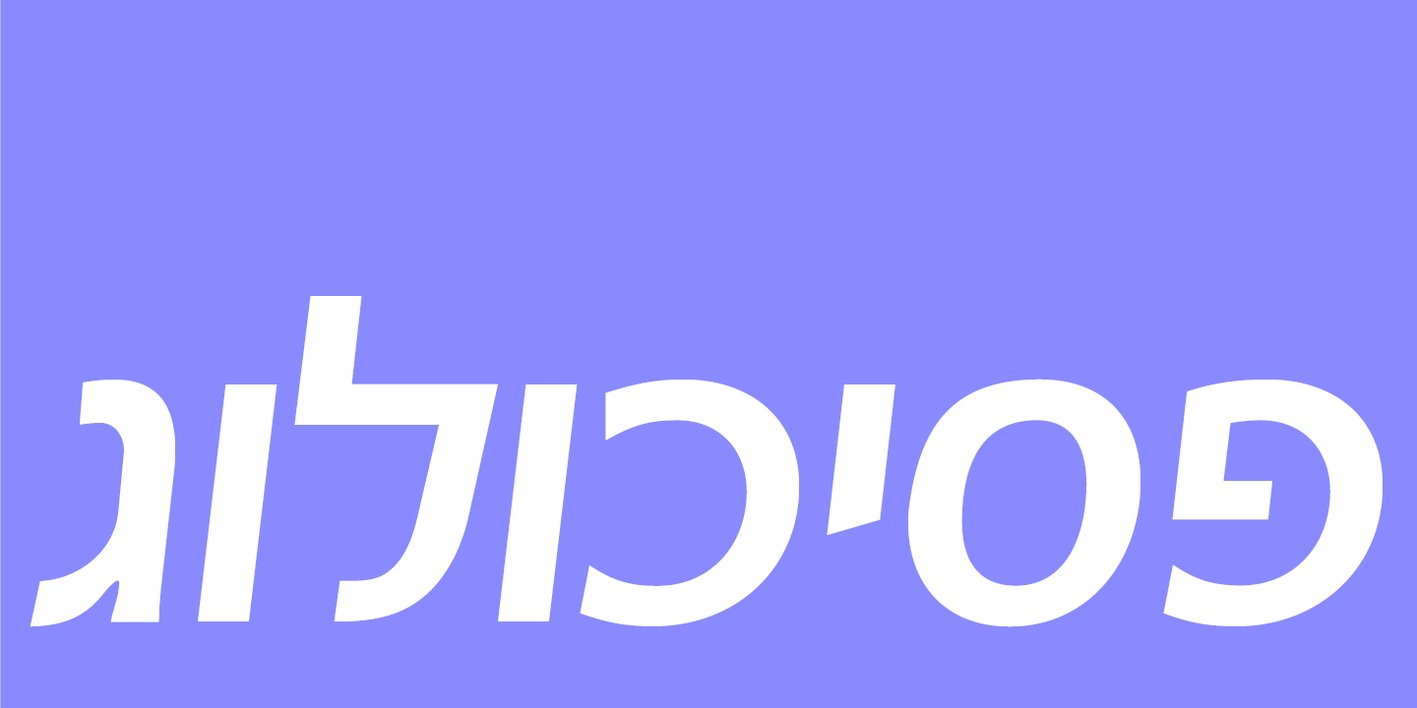
Capital MF Font is perfect for financial institution branding, investment firm communications, banking headquarters signage, capital management materials, wealth advisory services, corporate finance presentations, asset management companies, private equity firms, financial district buildings, and authoritatively financial marketing communications.
Capital MF Font is exciting because it embodies the institutional authority and financial sophistication of global capital markets with its powerfully structured letterforms that command respect in boardrooms and convey the unwavering stability that clients demand from institutions managing their financial futures. Its authoritatively solid character design reflects both the mathematical precision required for complex financial calculations and the trustworthy reliability that makes certain institutions pillars of economic stability, making it perfect for brands representing financial strength and investment expertise.
Capital MF Font family includes thin, light, regular, medium, bold, and black weights, each with corresponding italic versions. The font family also features financial ornaments, corporate ligatures, monetary symbols, and institutional decorative elements that enhance its authoritative aesthetic and financial industry versatility.
This authoritatively financial typeface represents the perfect fusion of institutional power and fiscal responsibility. Capital MF Font Free Download allows designers to experience its financial potential before making a commercial commitment. The font's ability to convey both monetary authority and institutional trust makes it ideal for banks, investment firms, and financial services companies targeting high-net-worth clients and institutional investors seeking proven financial expertise and reliable capital management.
Whether you're developing banking institution identities, creating investment materials, or designing financial communications, Capital MF Font brings an unmistakable sense of monetary authority and institutional stability to every project. Its commanding character and financial heritage create powerful connections that establish immediate credibility with investors and clients seeking trustworthy financial partnership and expert capital management.
The font's versatility excels in financial and corporate environments where authority and fiscal reliability are absolutely essential. Its institutional character makes it particularly effective for major banks, investment houses, wealth management firms, and financial institutions seeking to establish authoritative relationships with sophisticated investors and high-value clients who demand proven financial expertise.
For designers working on projects requiring genuine financial authority and institutional appeal, Capital MF Font provides an exceptional solution. Its authoritatively solid presence and comprehensive financial elements offer the tools needed for creating truly credible communications, while its monetary stability ensures your designs capture the institutional strength and financial expertise that defines the most trusted capital management and banking excellence.